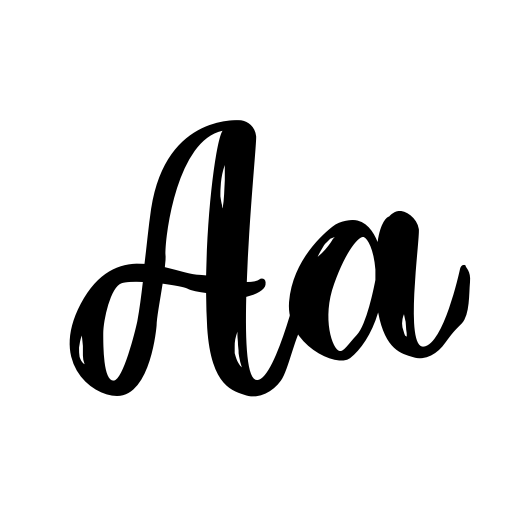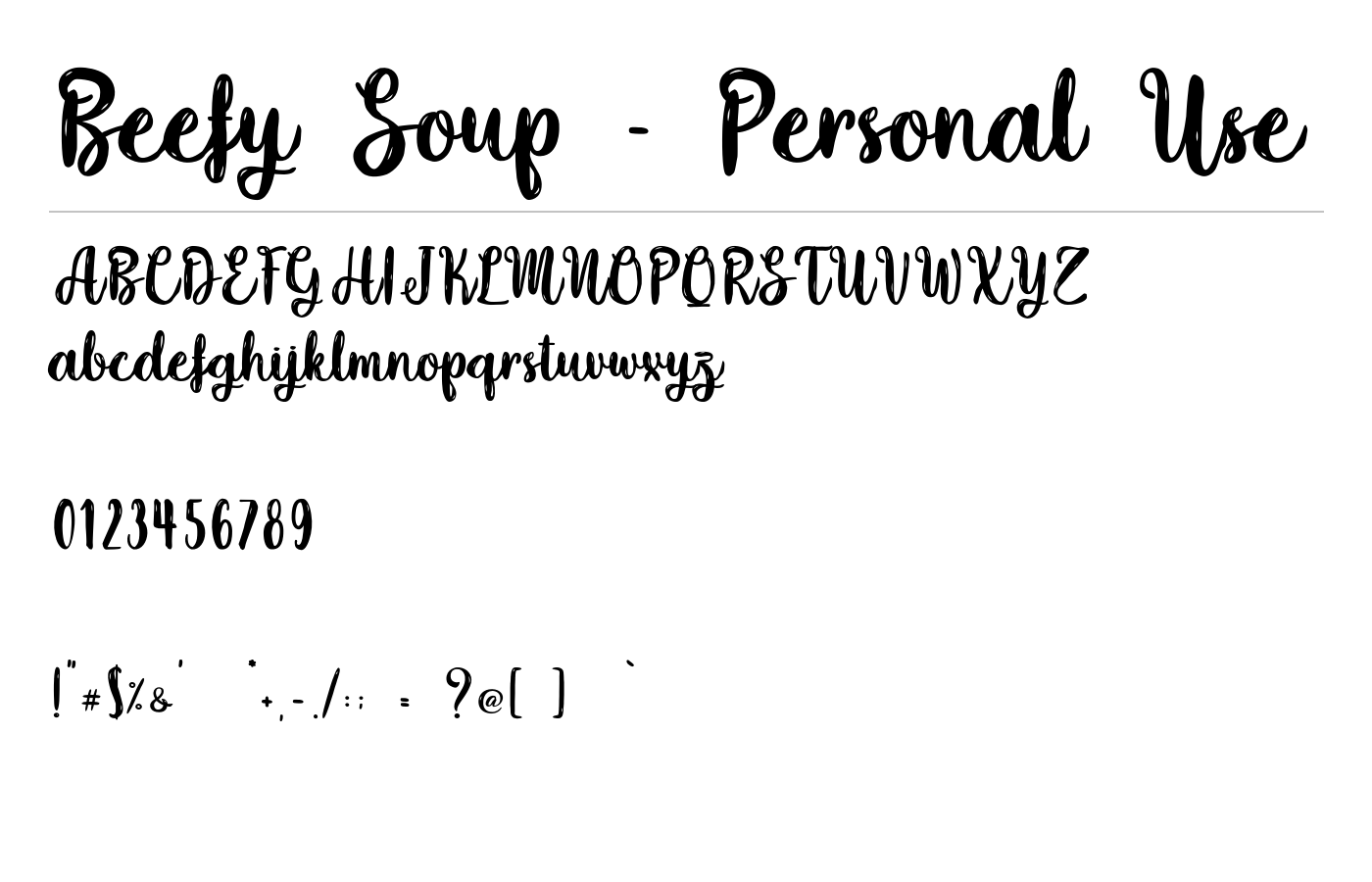
Beefy Soup is a bold, playful script font with a hand-lettered feel, featuring smooth, rounded strokes and a slightly condensed width. Its lively and charming letterforms, complete with swirly terminals and a casual flair, make it ideal for creative branding, invitations, and fun headline designs. This font works well when you want to add a friendly, approachable vibe with a touch of artistic personality.
Beefy Soup - Personal Use Font